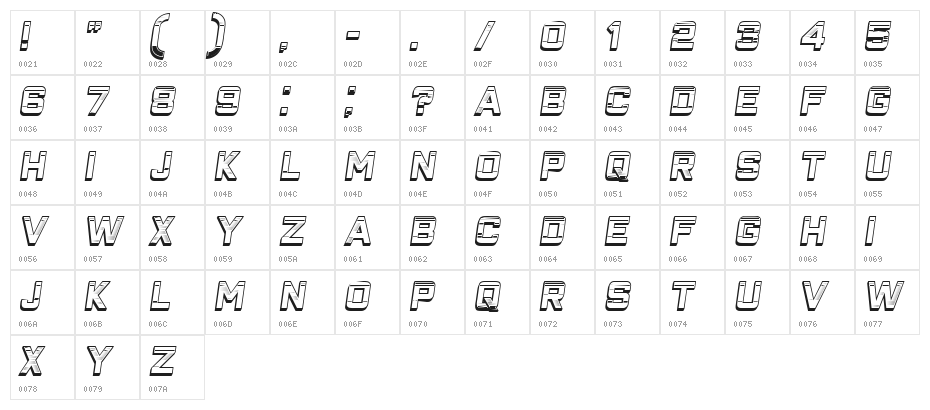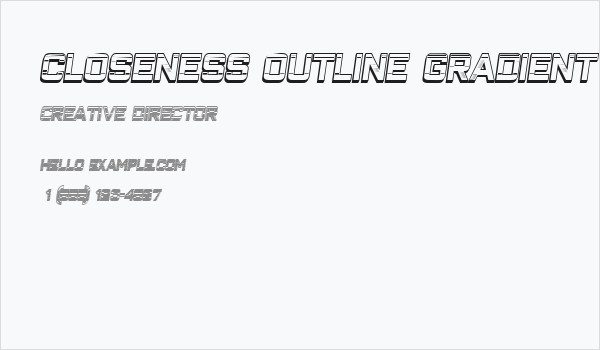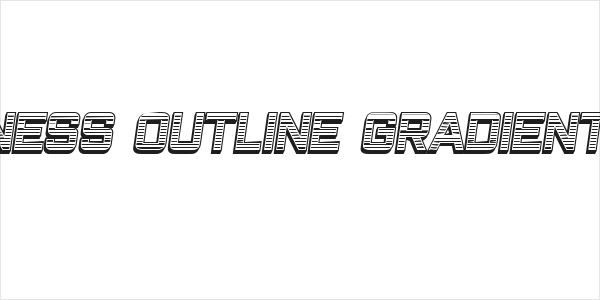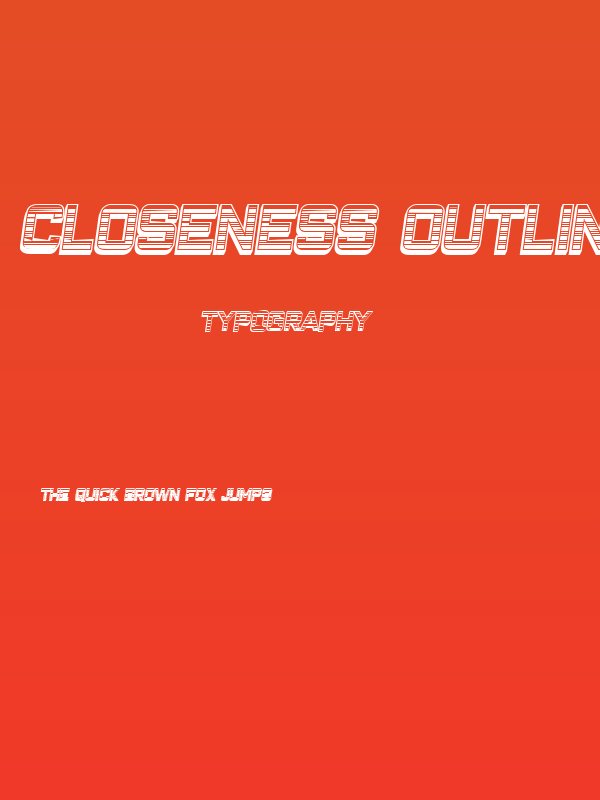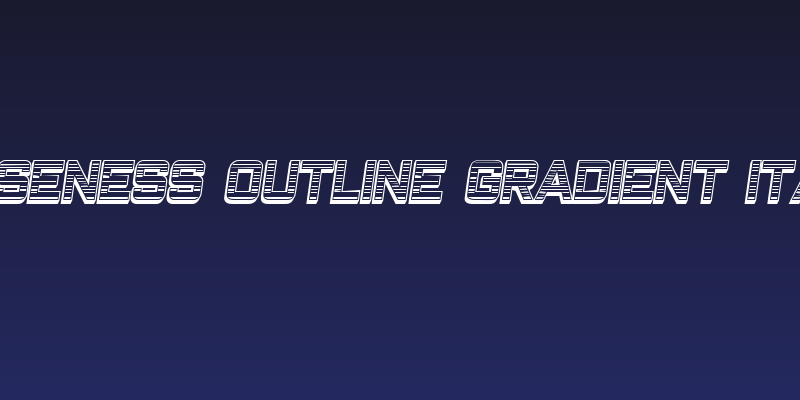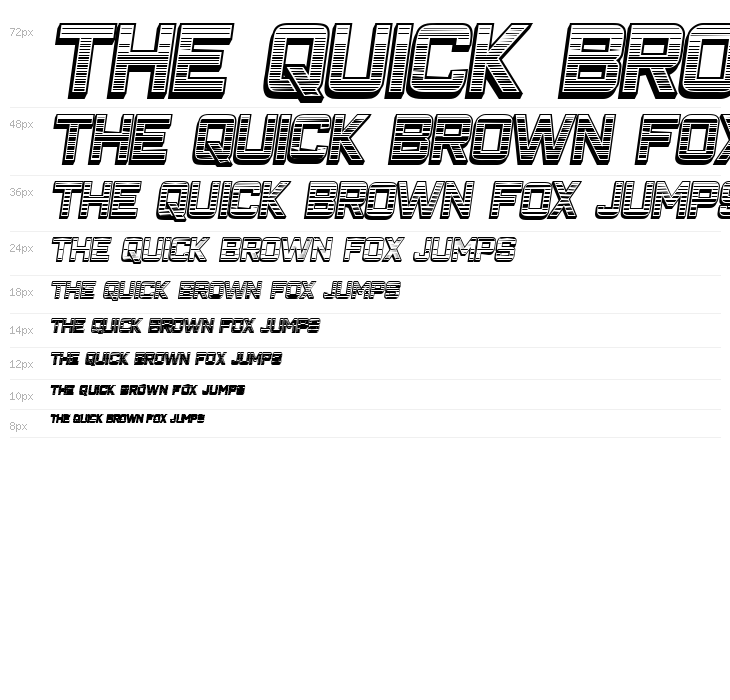
Closeness Outline Gradient Italic Font
Closeness Outline Gradient Italic Description
This font features a bold, outlined style with a gradient effect that gives it a three-dimensional appearance. The italicized slant adds a dynamic and modern touch, making it stand out. Each character is meticulously designed with parallel lines that create a sense of depth and movement. The uppercase and lowercase letters maintain a consistent style, while the numbers and special characters complement the overall aesthetic. The font's unique design makes it ideal for eye-catching displays and creative projects.
| Proposed Projects | Ideal for posters, headlines, logos, and branding materials that require a modern and striking appearance. |